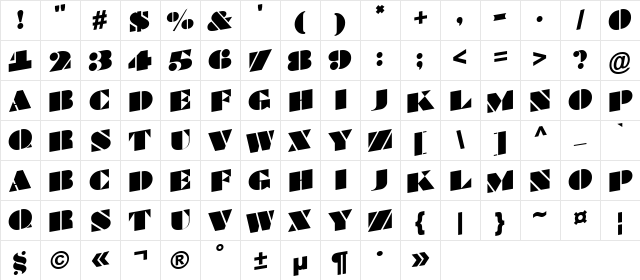
a_BraggaTitulSpUp Regular Free Font
a_BraggaTitulSpUp Regular
Design Context for a_BraggaTitulSpUp
a_BraggaTitulSpUp is a composed and adaptable typeface that performs quietly and consistently across a wide range of design contexts.
Pro Tip: Use a_BraggaTitulSpUp in both headline and body roles to test its range before committing to a single application.